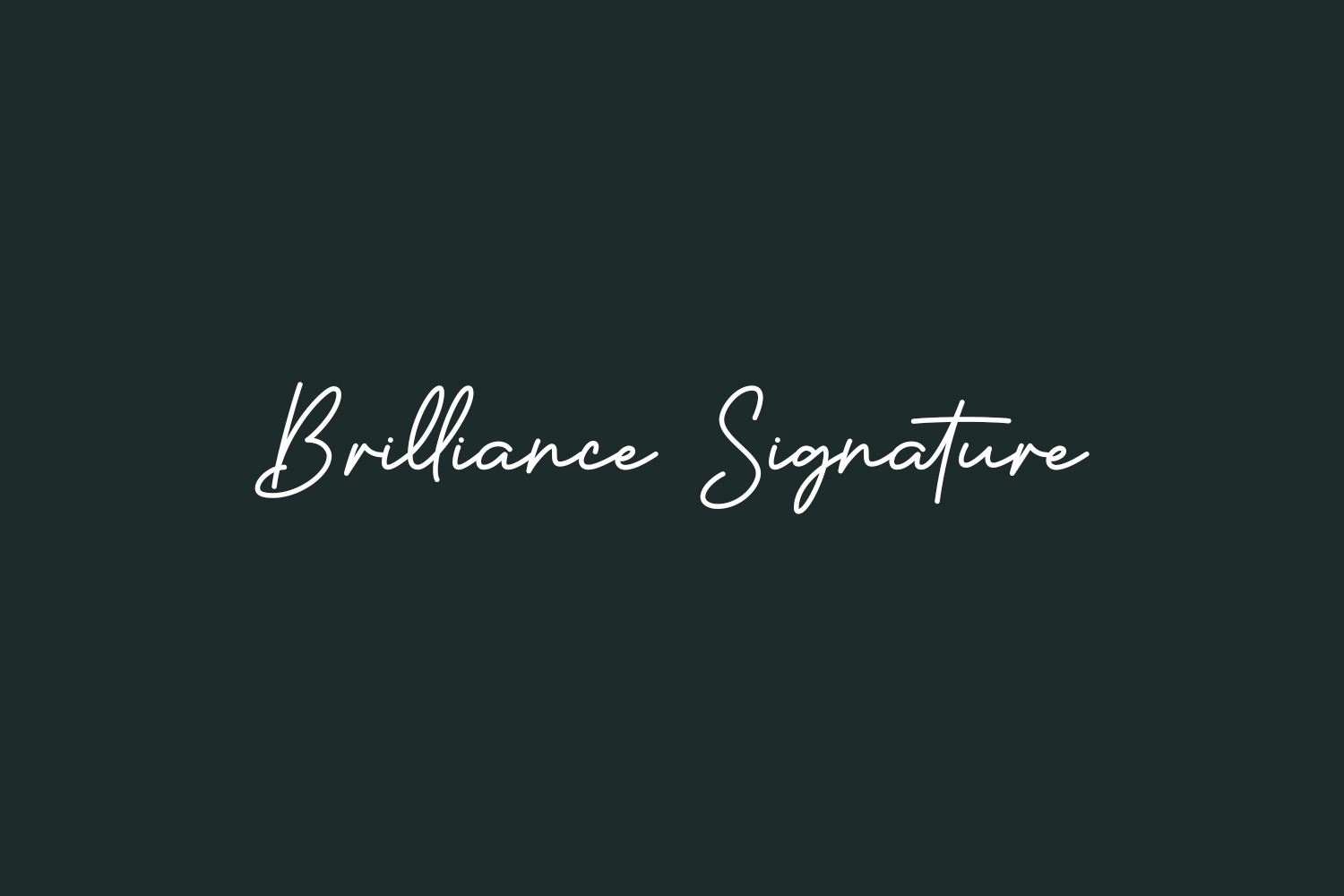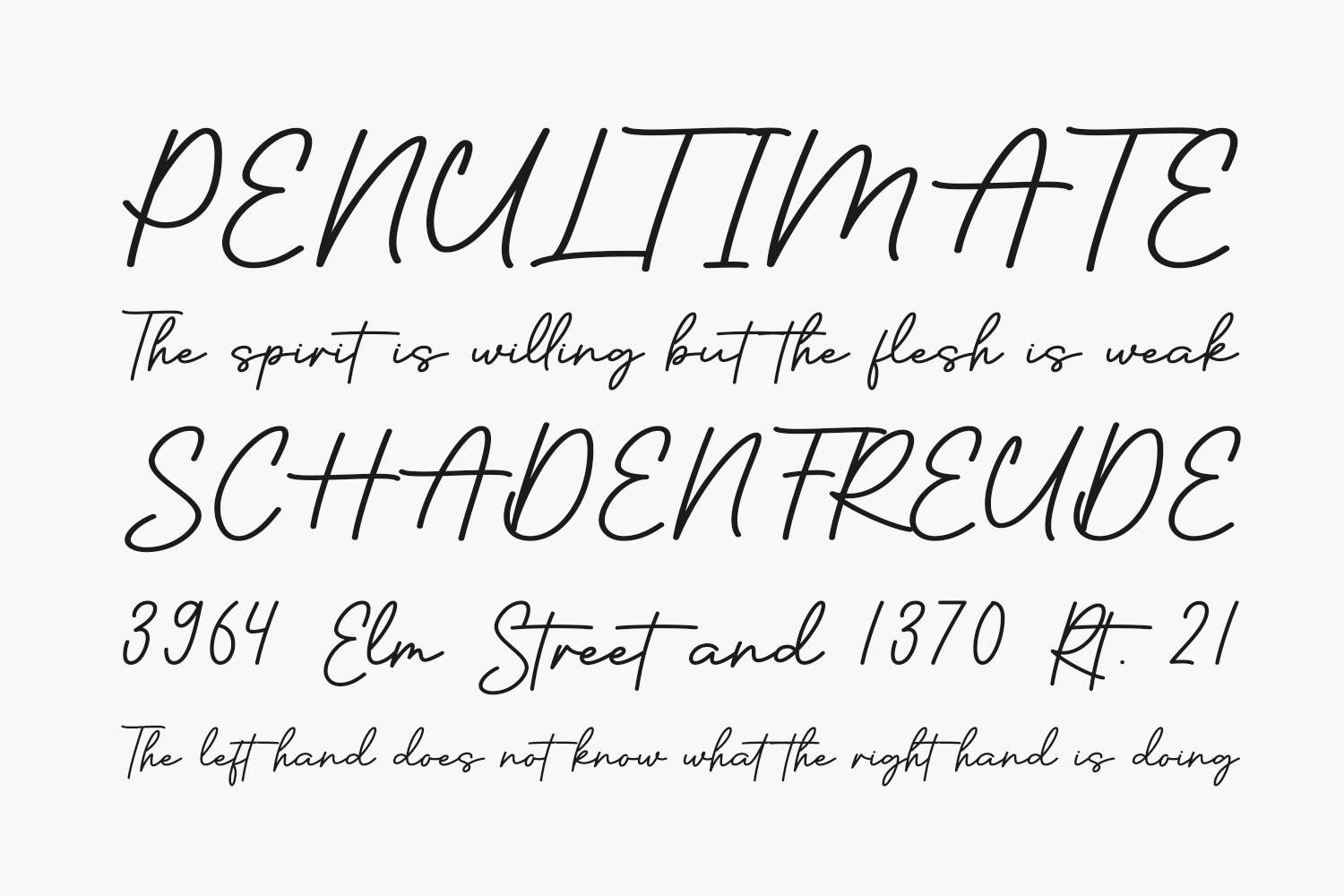
Brilliance Signature Free Font is a dainty and flowing handwritten font. Sweet and joyful, this font will be ideal for writing wedding invitations, cards, or any other design that may need a romantic, personalized touch. Brilliance Signature Free Font was designed by Graphix Line Studio and is free for personal use only. Please purchase the full version for commercial use.